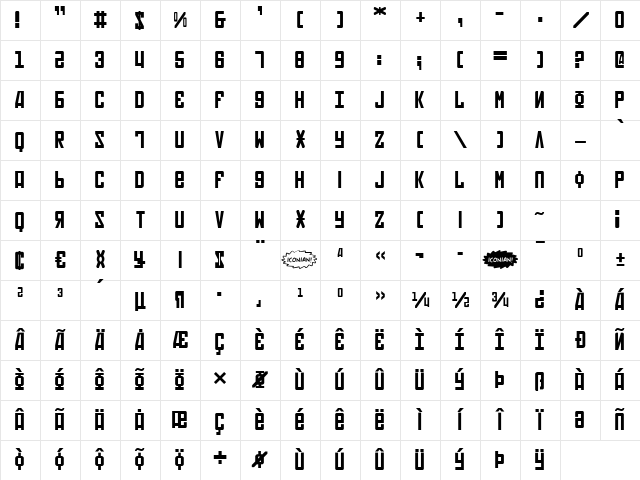
Soviet Regular
Designer: Dan Zadorozny
Complete Soviet Regular glyph index. Displaying only characters natively supported by Soviet Regular font.
Design Context for Soviet
Soviet is a composed and adaptable typeface that performs quietly and consistently across a wide range of design contexts.